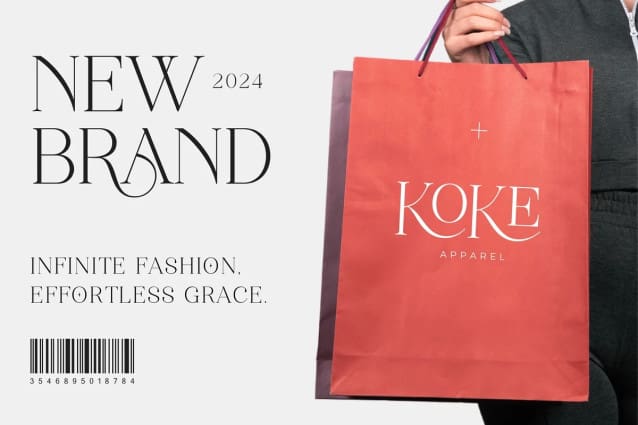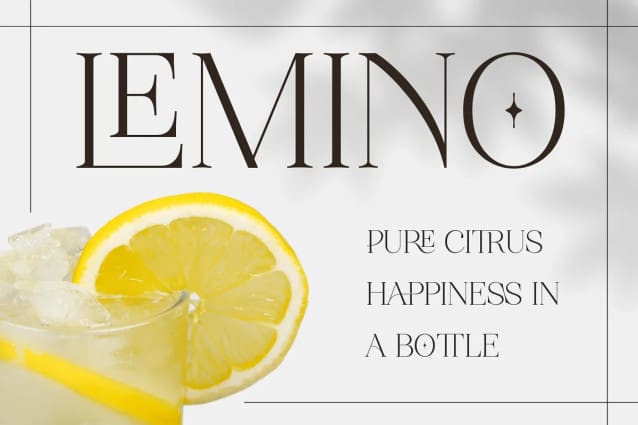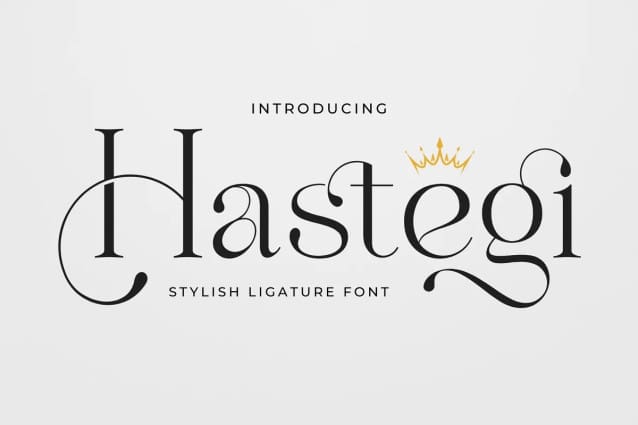
Hastegi Font
Hastegi Font is a stylish serif font that elevates your typography with its exquisite ligatures. This font merges classical elegance with a contemporary twist, offering a unique and sophisticated appeal. Ideal for projects requiring a touch of refinement, “Hastegi” seamlessly blends the artistry of ligatures with a timeless serif design, making it a perfect choice for creating stylish and distinctive visual experiences.